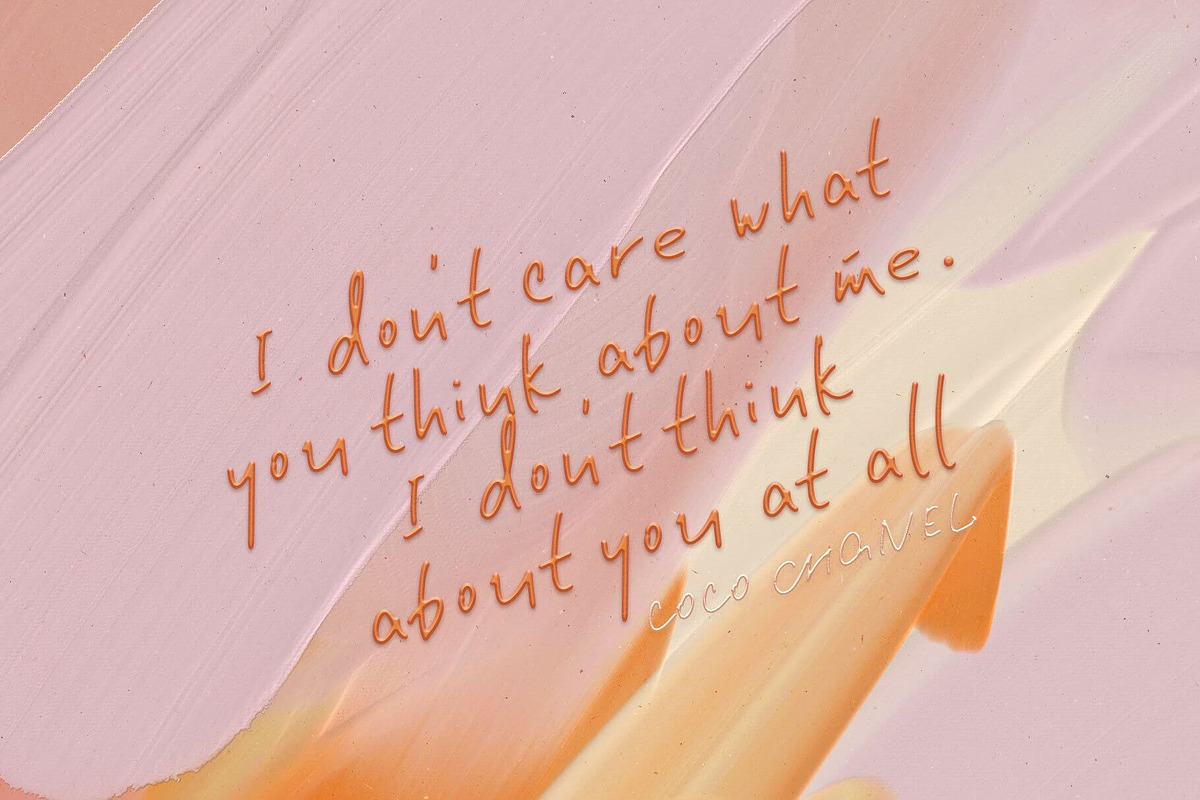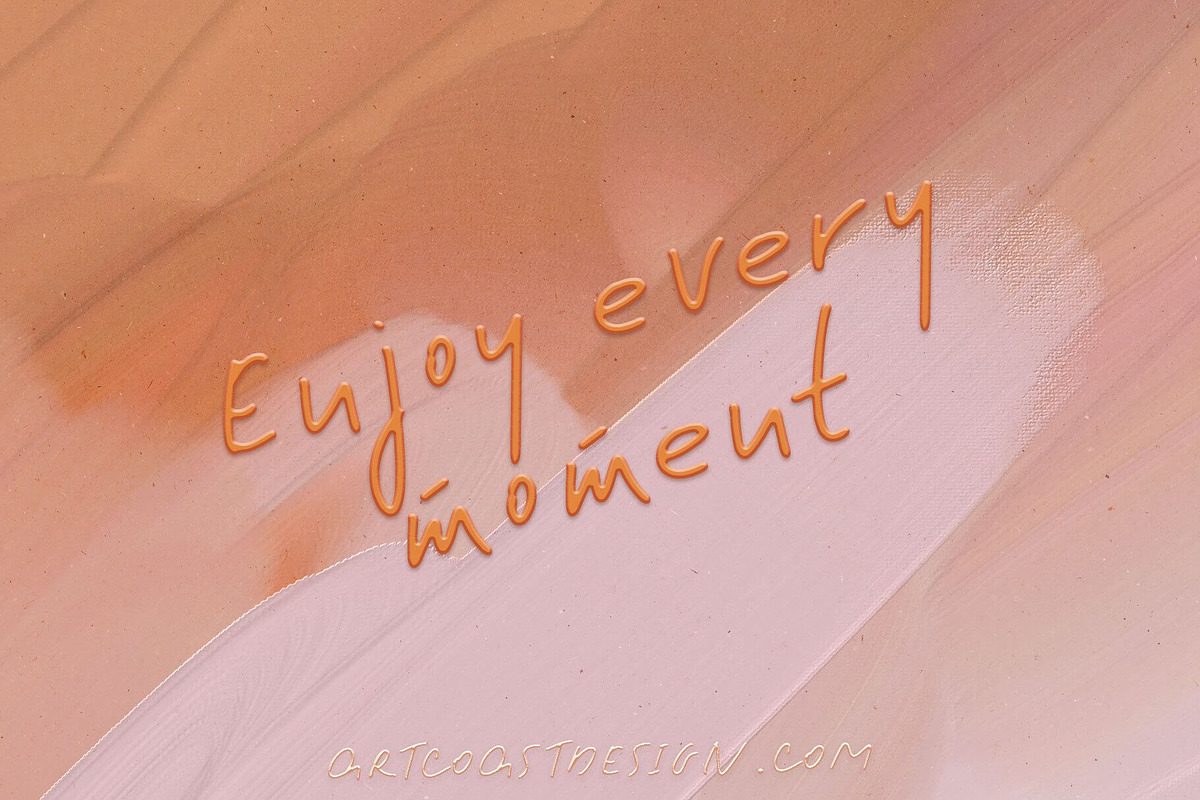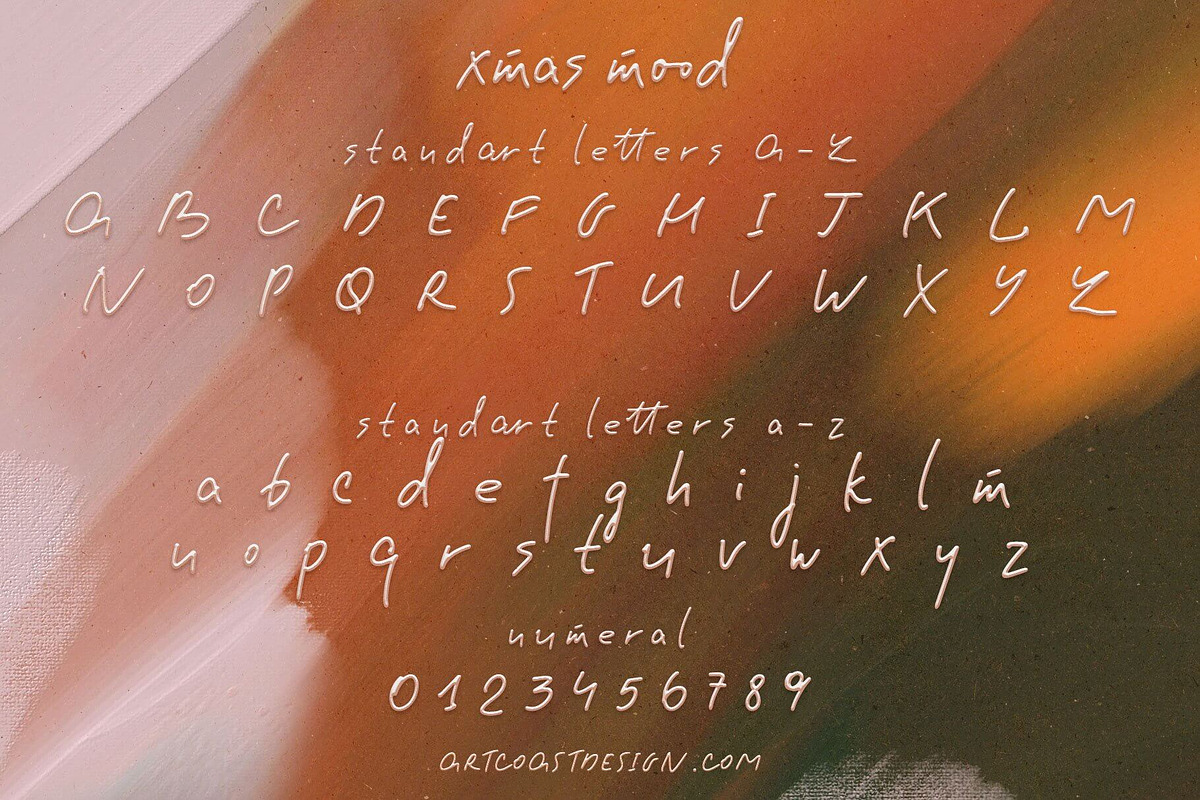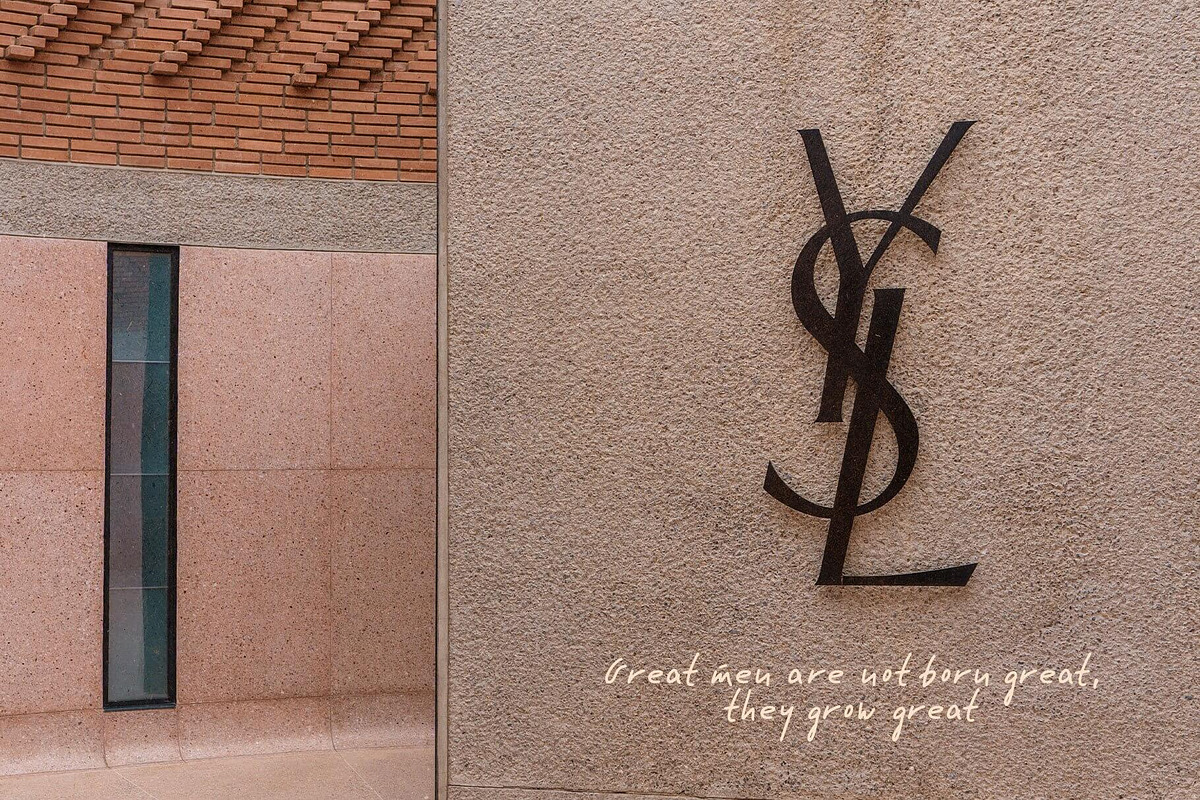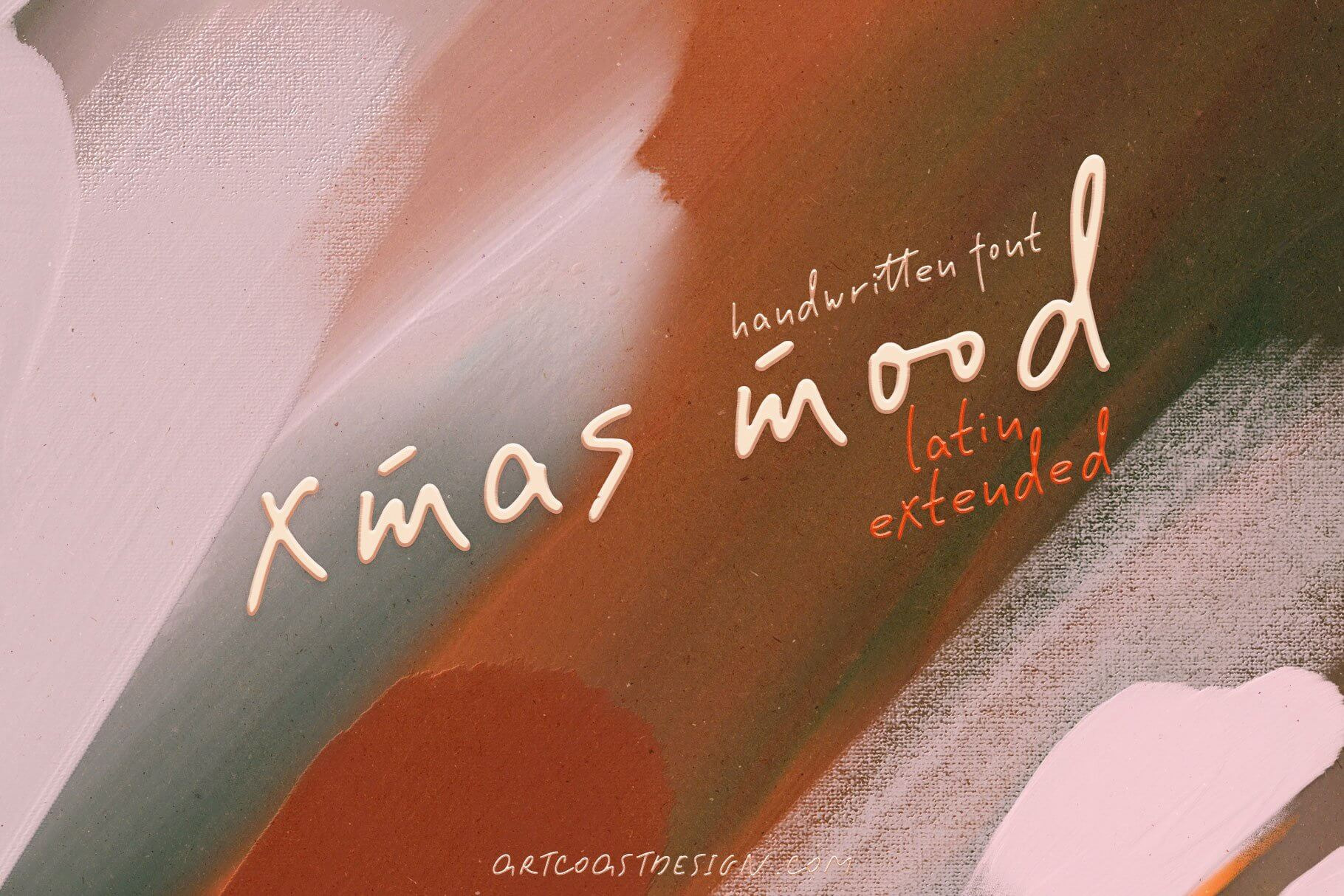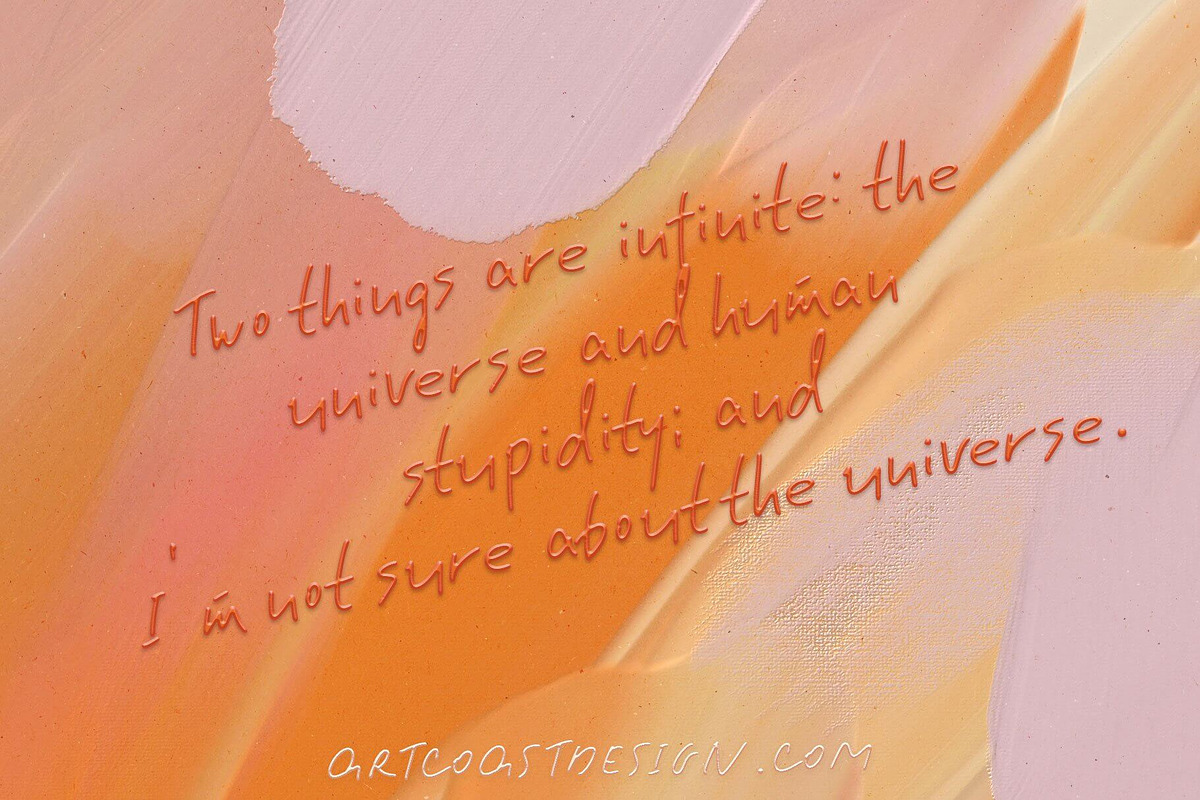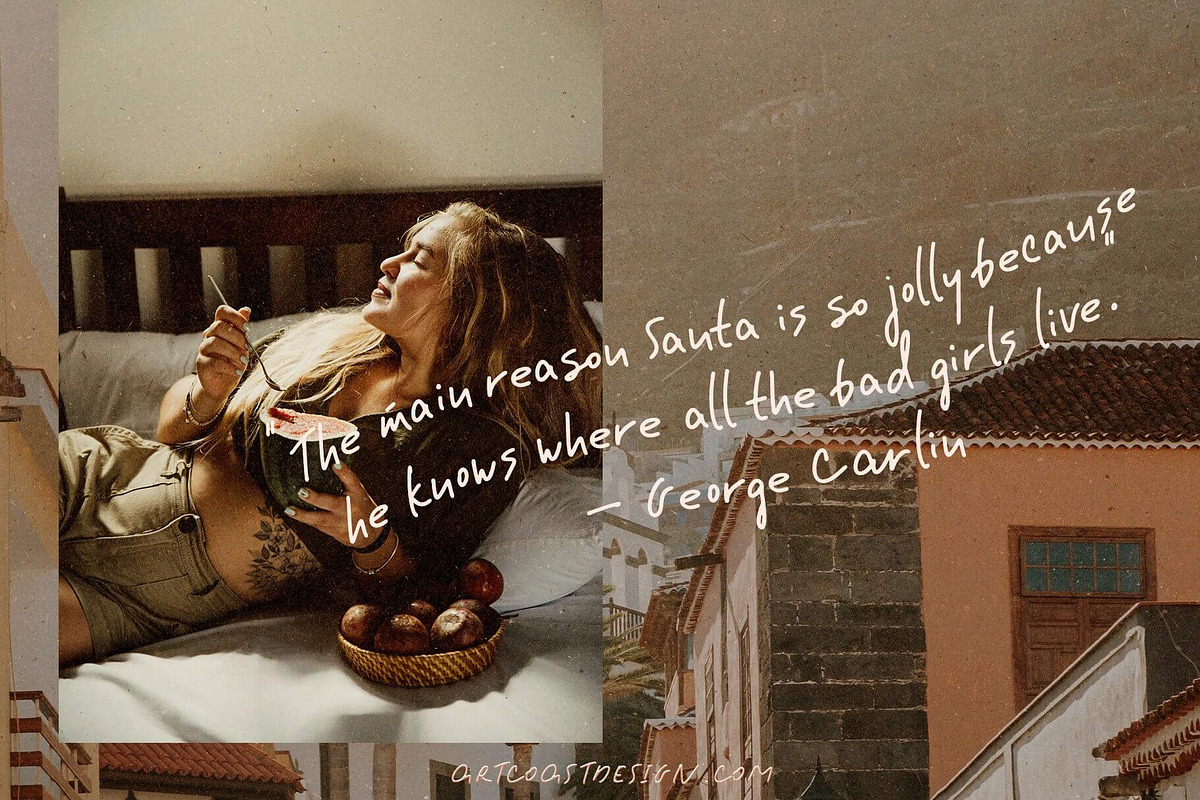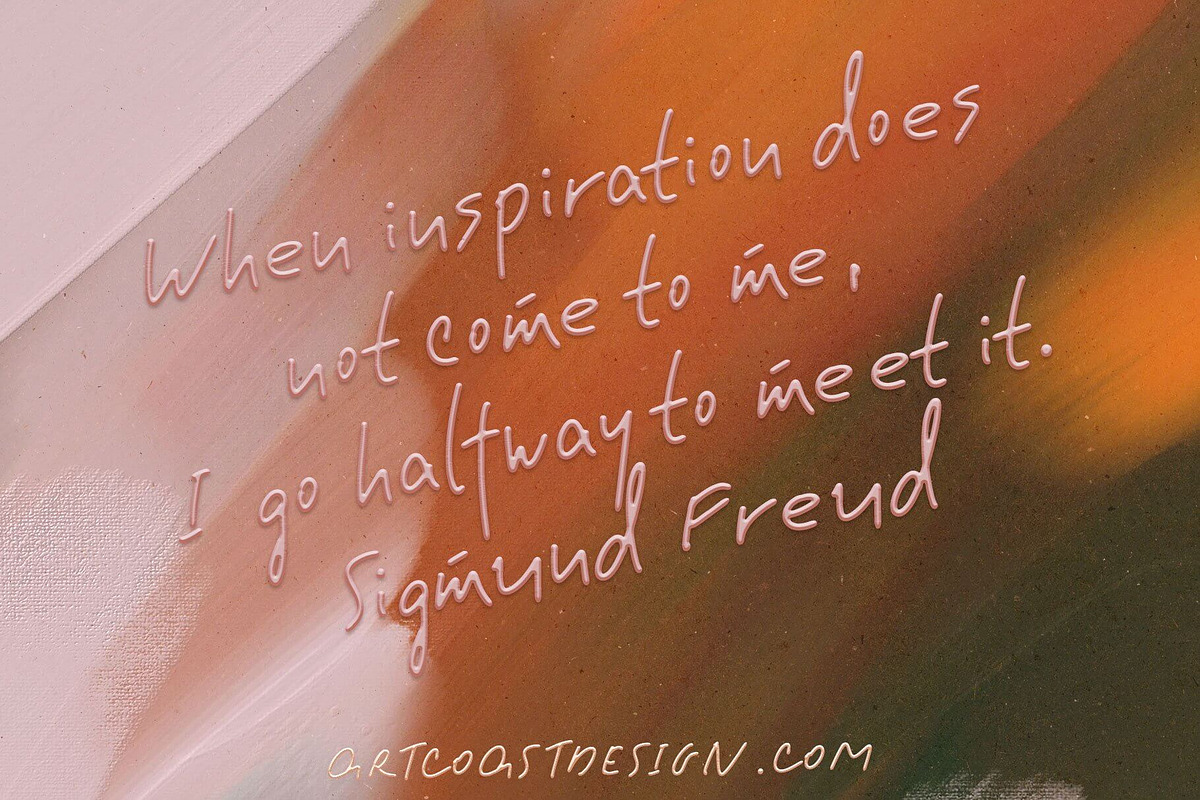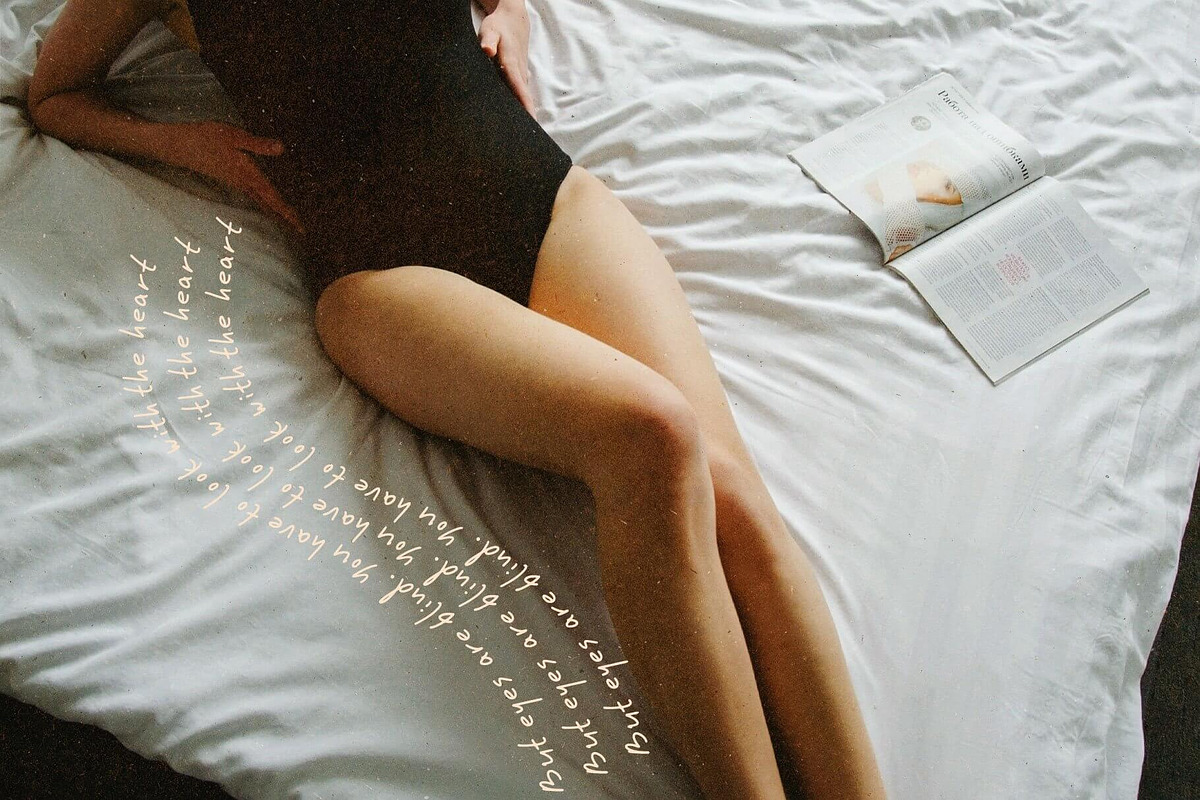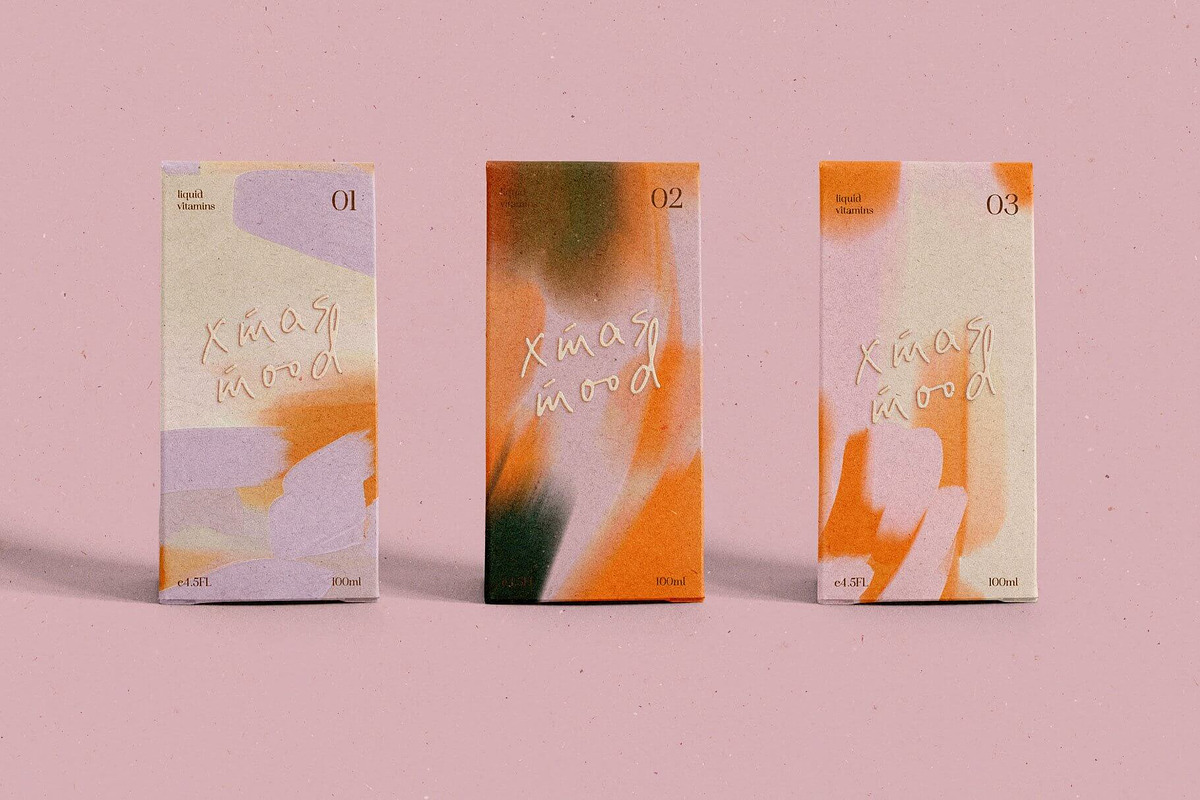
Xmas Mood Handwritten Font
SA Xmas Mood - New Font
New Handwritten letter effect font, Bold and playful for branding, postcards, social media and more. Also included is Extended Latin.